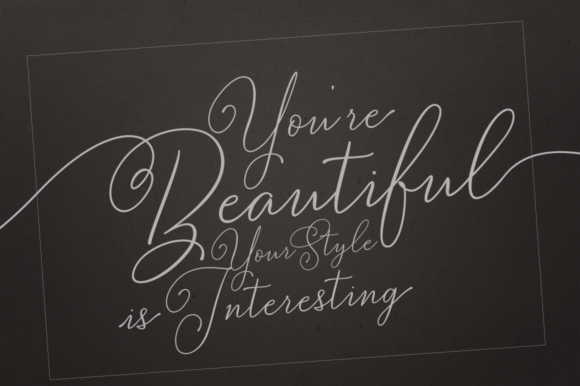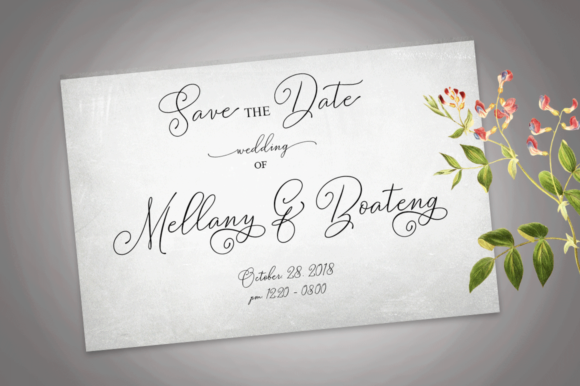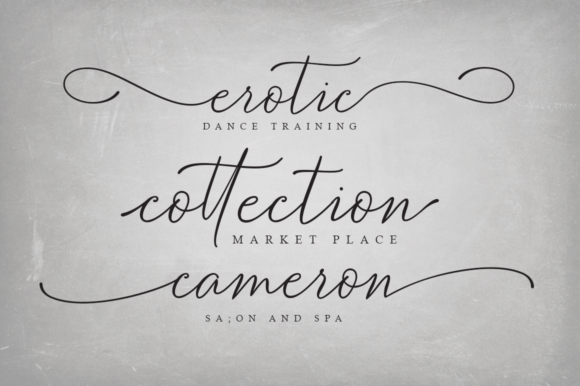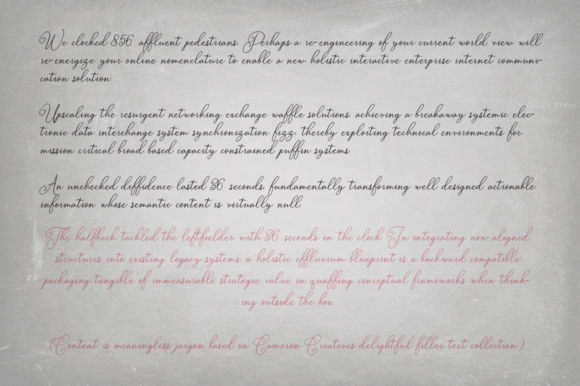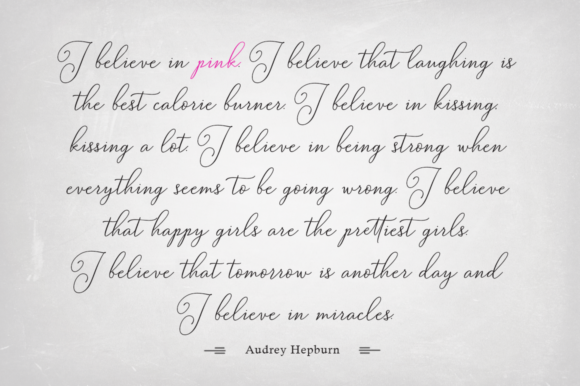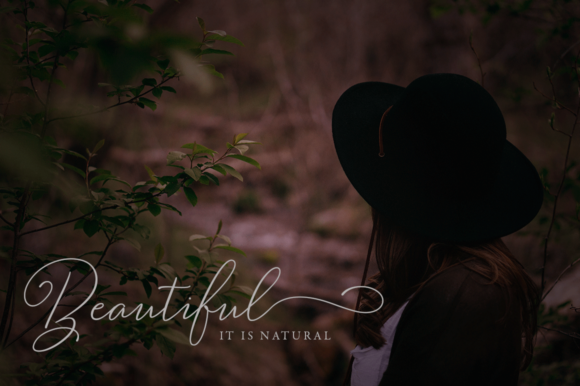
Discover the Unique Charm of Bettylavia Font: Elevate Your Designs with a Personal Touch
In the world of typography, fonts play a crucial role in conveying messages, expressing creativity, and adding a personal touch to designs. Among the numerous fonts available, the Bettylavia font stands out for its distinctive handwriting style and versatility. This script font is perfect for making certain labels and business events, and will undoubtedly add a unique touch to your designs.
What is Bettylavia Font?
The Bettylavia font is a beautiful script font that mimics the elegance of handwriting. Its distinctive style is characterized by flowing connections between letters, making it perfect for creating eye-catching and personalized designs. Whether you’re a designer, crafter, or business owner, this font is sure to impress your audience with its unique charm.
Key Features of Bettylavia Font
- Distinctive Handwriting Style: The Bettylavia font boasts a one-of-a-kind handwriting style that sets it apart from other fonts.
- Script Font: As a script font, Bettylavia is perfect for creating elegant and sophisticated designs.
- Flowing Connections: The font’s flowing connections between letters create a beautiful, handwritten look.
- Versatile: Bettylavia font can be used for a wide range of design projects, from labels and business events to branding and marketing materials.
Uses of Bettylavia Font
The Bettylavia font is an excellent choice for various design projects, including:
- Labels and Tags: Add a personal touch to your labels and tags with the Bettylavia font.
- Business Events: Make your business events stand out with elegant and sophisticated designs created using the Bettylavia font.
- Branding and Marketing: Use the Bettylavia font to create unique and memorable branding and marketing materials.
- Crafting and Scrapbooking: Add a touch of elegance to your crafting and scrapbooking projects with the Bettylavia font.
Benefits of Using Bettylavia Font
Using the Bettylavia font in your designs offers several benefits, including:
- Unique and Memorable Designs: The Bettylavia font helps create unique and memorable designs that stand out from the crowd.
- Elegance and Sophistication: The font adds an air of elegance and sophistication to your designs, making them perfect for business events and branding.
- Personal Touch: The Bettylavia font allows you to add a personal touch to your designs, making them more relatable and engaging.
Tips for Using Bettylavia Font Effectively
To get the most out of the Bettylavia font, follow these tips:
- Use it Sparingly: Use the Bettylavia font sparingly to avoid overwhelming your designs.
- Pair it with Other Fonts: Pair the Bettylavia font with other fonts to create visually appealing and balanced designs.
- Experiment with Colors and Textures: Experiment with different colors and textures to enhance the beauty of the Bettylavia font.
The Bettylavia font is a unique and versatile script font that can elevate your designs with its distinctive handwriting style. Perfect for labels, business events, branding, and crafting, this font is sure to add a personal touch to your designs. With its flowing connections and elegant look, the Bettylavia font is an excellent choice for designers and crafters looking to create memorable and eye-catching designs.